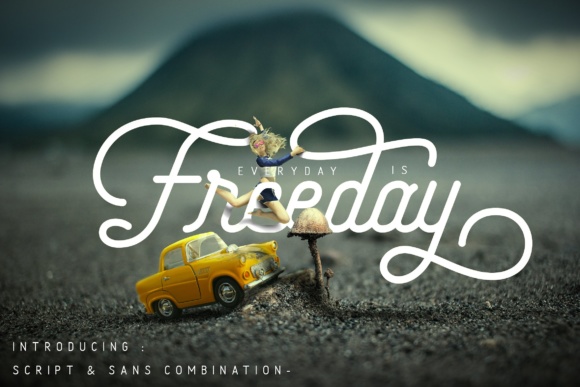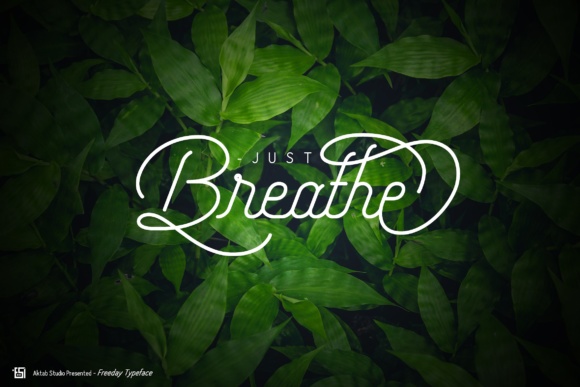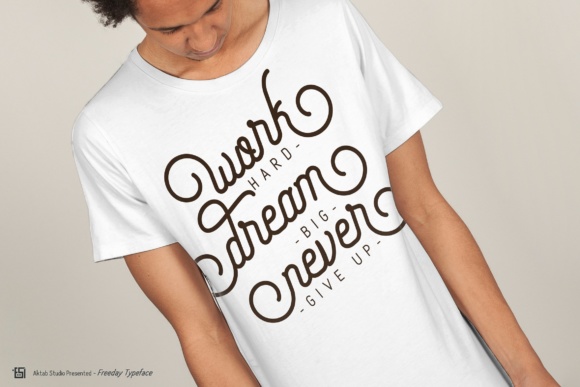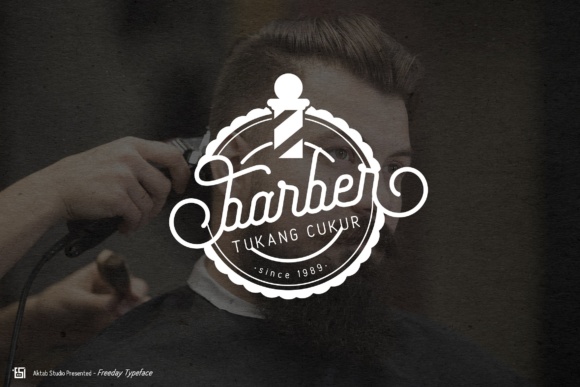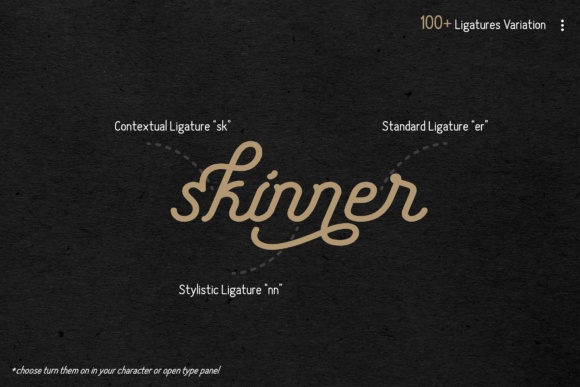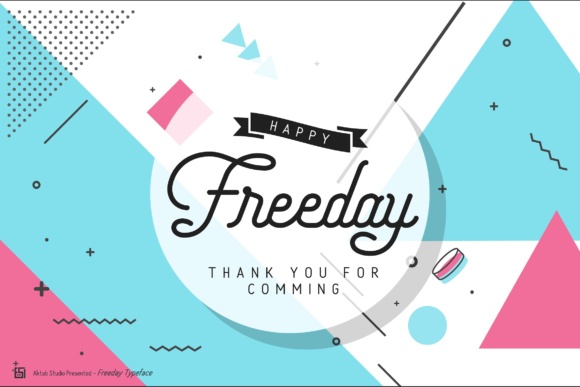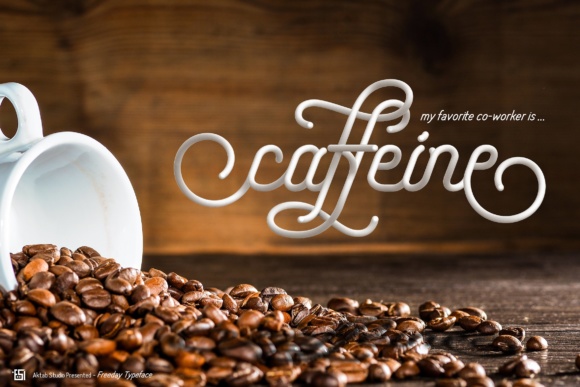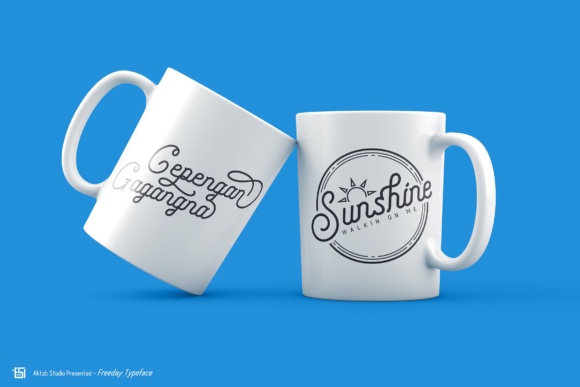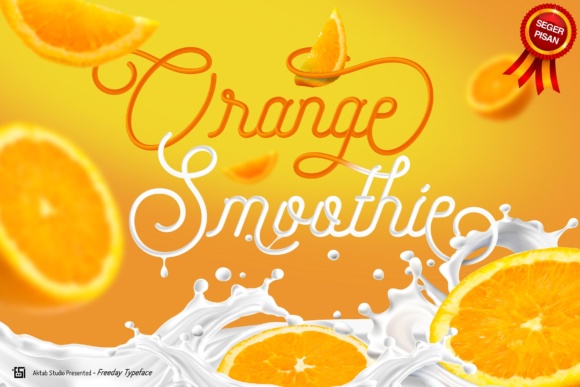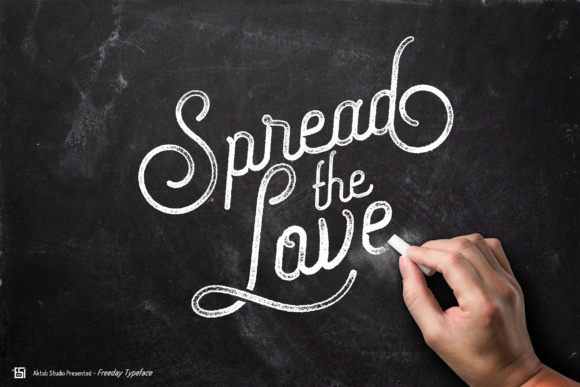
Freeday Font
About Freeday Font
Freeday is a beautiful, modern monoline display script that exudes love and style! This font comes in different styles, so you can find a way to use it in a large range of projects for consistent branding or style.